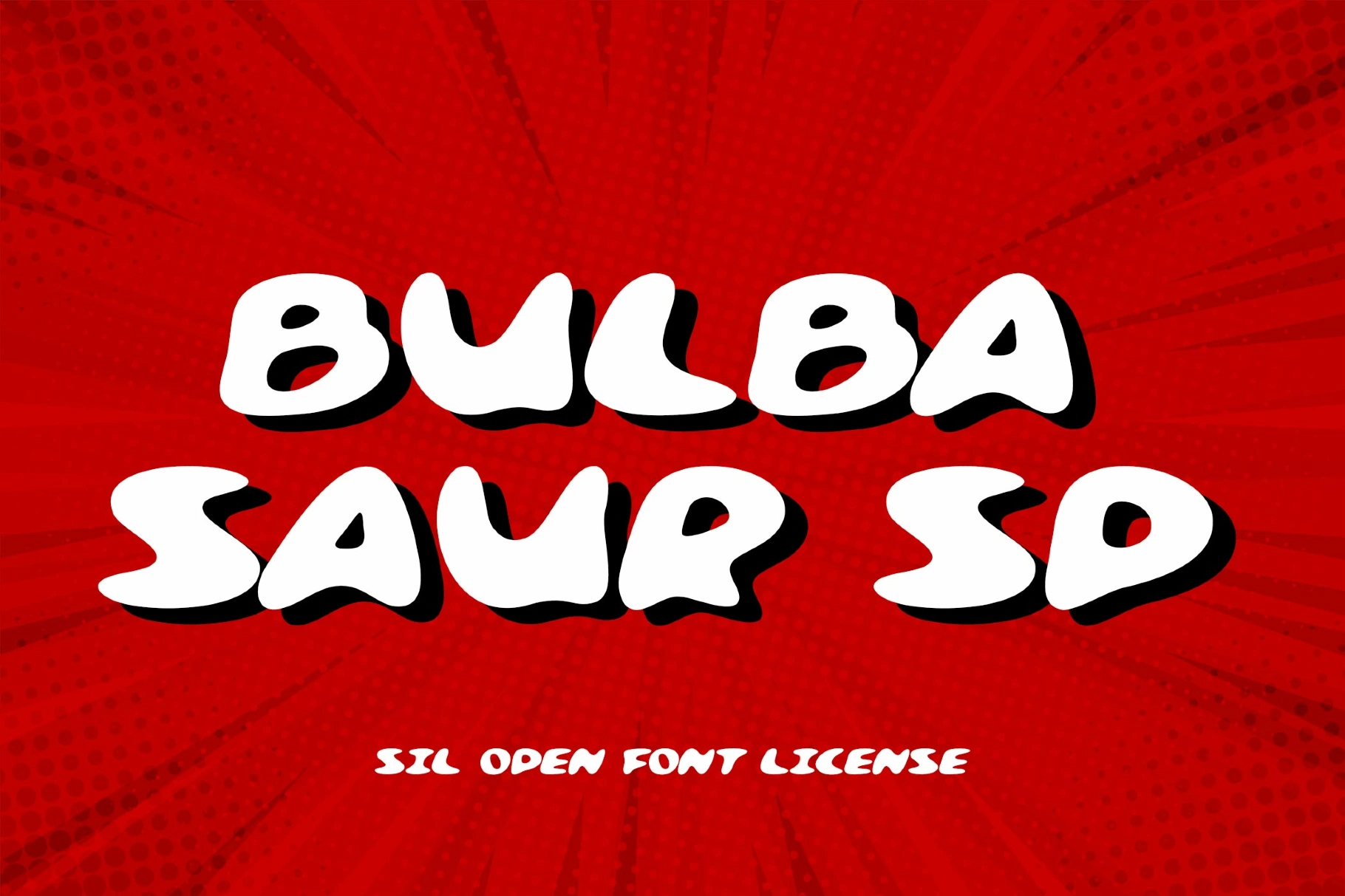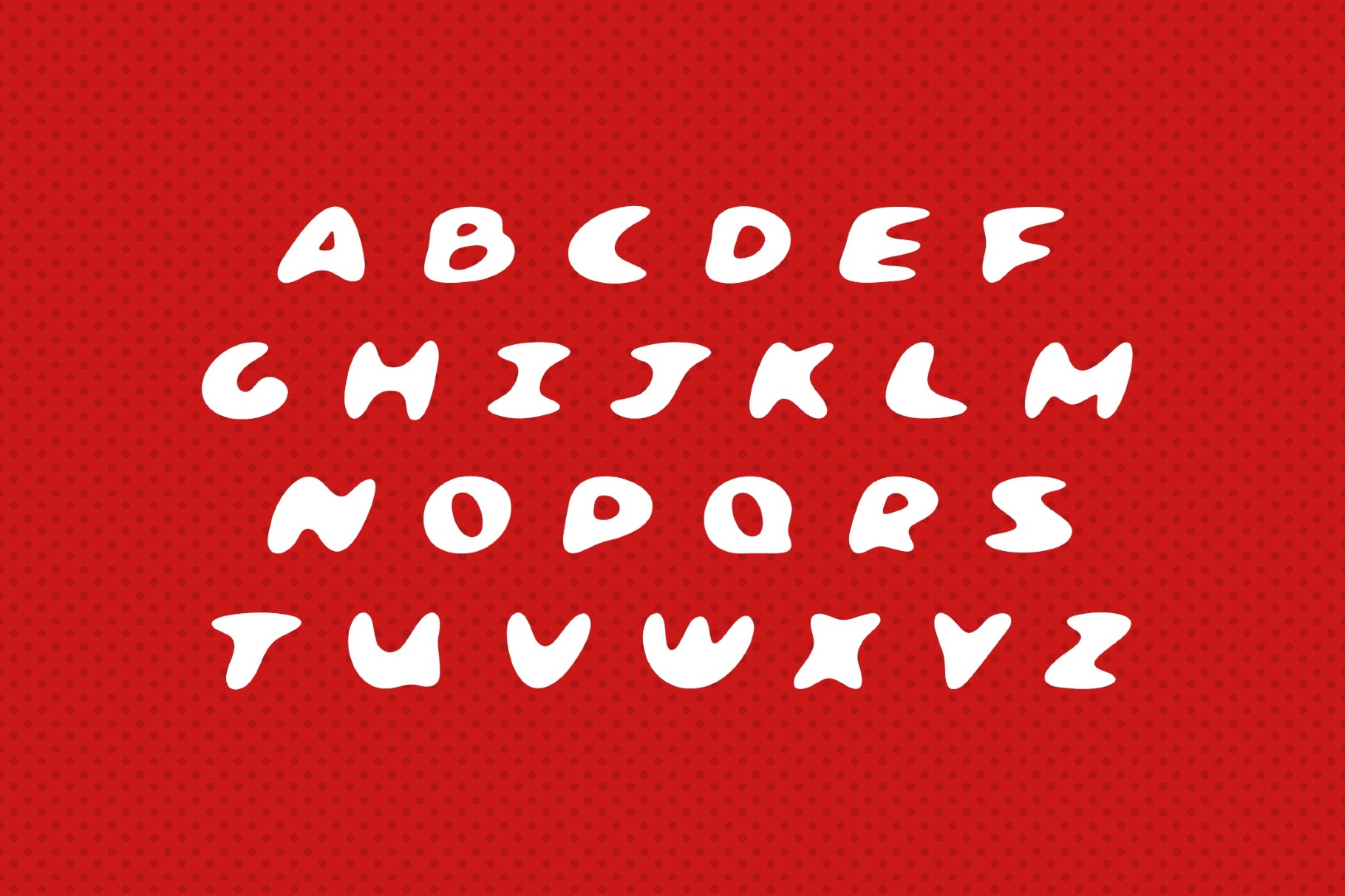
Bulbasaur SP Font
BulbasaurSP
Bulbasaur SP is a bubbly display type with plump contours and the cheerful mischief of Pokémon-era game graphics, children’s snack packaging, and Saturday-morning cartoon lettering. This amused, fun font suits toy branding, candy wrappers, kids’ posters, YouTube thumbnails, sticker sets, party invitations and playful social graphics.